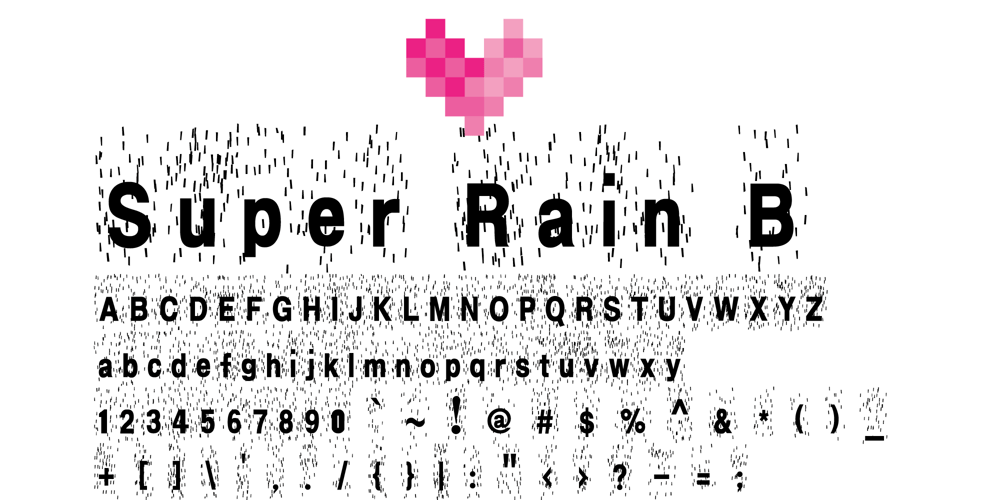
Super Rain B Font Family was designed by Yona Yang and published by Yangtype. Super Rain B contains 1 styles and family package options. The concept of this letter is ‘pleasure’. The shape of the letters with the rain is refreshing. The hardness of the letters, which can tolerate a certain amount of rain, and the intensity of the strong rain create a sense of pleasure.